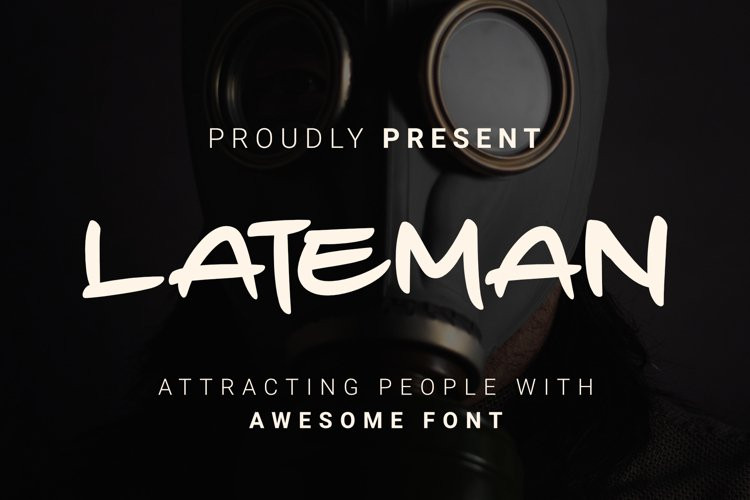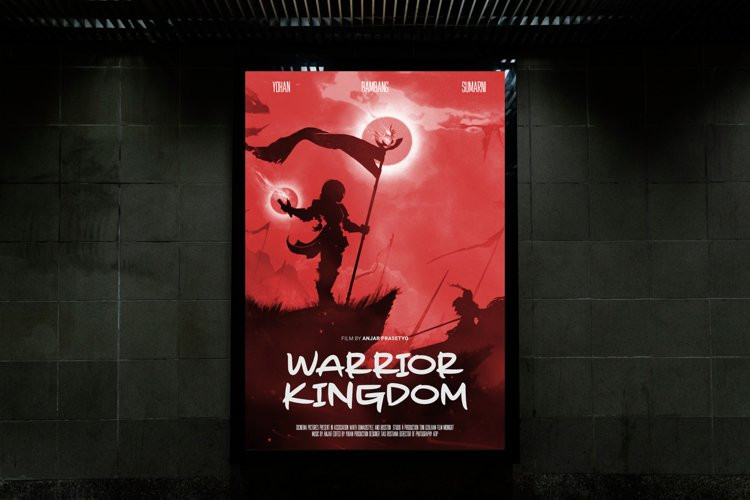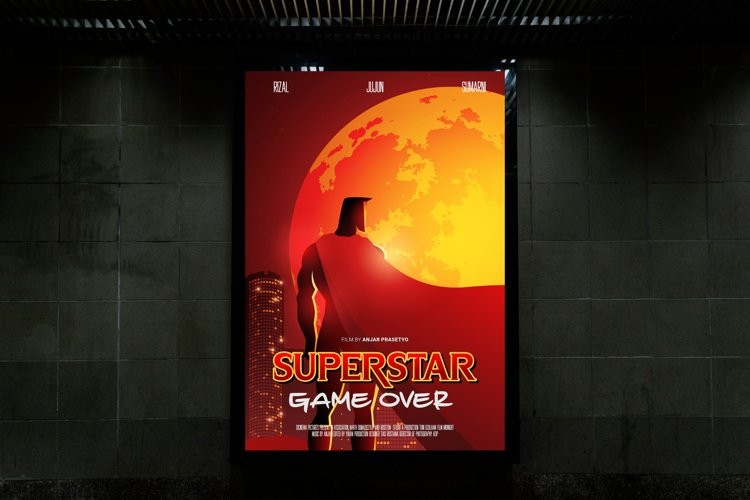
Lateman Font
Lateman FontLateman is a casual font built with apps. with freestyle and natural make this font look friendly to the project you are working on.
Lateman only consists of uppercase letters, but if it collaborates with other fonts, it will feel more striking like the preview example above. This font was created for superhero movie titles and is perfect for movie titles, superheroes, action, animation, war, and more.